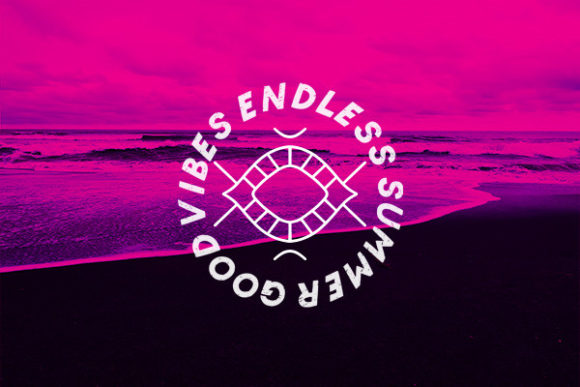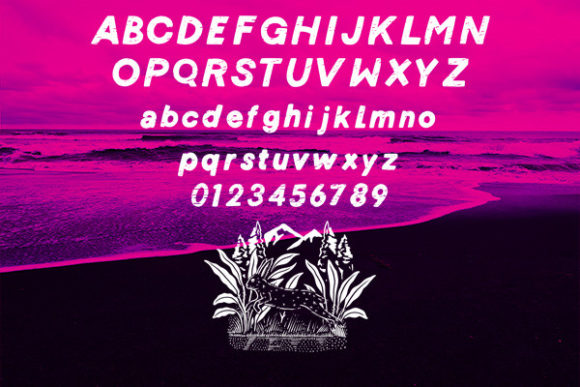
Introduction to Muga Retro Font
Do you ever find yourself stuck in a creative rut, searching for that perfect font to bring your design project to life? You’ve spent hours scrolling through design resources, only to settle for something that just doesn’t quite fit the vibe you’re going for. Well, we’re here to tell you that your search is over. Introducing the Muga Retro Font – a bold, rough-textured display font that’s guaranteed to add some serious edge to your next creative project.
Whether you’re working on a branding project, designing a logo, or creating custom sportswear, the Muga Retro Font is the perfect addition to your design arsenal. Its high-quality texture and transparent background make it a versatile choice for a wide range of applications, from t-shirt printing to digital design. And the best part? It’s available for free download, making it an accessible resource for designers of all levels.
- Unique, vintage-inspired design perfect for creative projects and retro-themed designs
- Perfect for use in graphic design, digital art, and print media, adding a touch of nostalgia and charm to any project
Honest Review: Muga Retro Font
I recently stumbled upon the Muga Retro Font, and I must say it’s a fantastic addition to any design resource collection. As a designer, I’m always on the lookout for unique and high-quality fonts to elevate my creative projects.
Here’s what works well about the Muga Retro Font:
- ✨ The font’s nostalgic vibe is perfect for retro-themed designs or projects that require a vintage feel.
- ✨ The font’s high quality is evident in its crisp lines and well-defined letterforms, making it suitable for a wide range of design applications.
One limitation I’ve noticed is that the font might not be suitable for modern or minimalist designs, as its retro aesthetic can be overpowering in certain contexts.
Overall, I’m impressed with the Muga Retro Font, and I would recommend it to designers looking for a unique and high-quality font to add some character to their creative projects.
The Muga Retro Font is a unique and stylish design resource that can add a touch of nostalgia to your creative project. With its high-quality design, you can easily download it for free to use in your next project.
The Muga Retro Font is perfect for:
- Creating retro-themed designs and graphics.
- Adding a touch of nostalgia to your branding and marketing materials.
- Creating unique and eye-catching titles and headings.